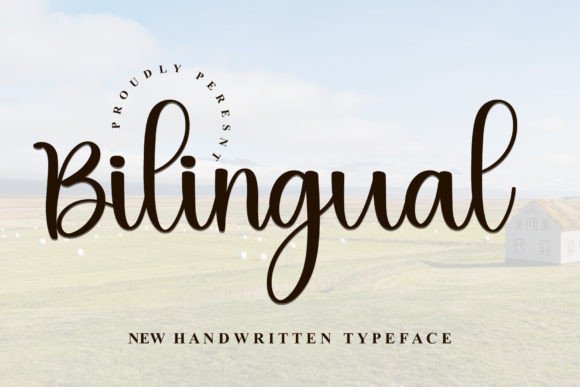
Feast your eyes on Bilingual, the acme of script fonts, meticulously crafted by FreshTypeINK. This elegant, modern typeface is designed to captivate, leaving an indelible mark on your business cards, logos, branding, invitations, stationery, wedding designs, and social media posts.
Bilingual is not just a font; it's an experience. Its graceful curves and impeccable details evoke a sense of sophistication and luxury. Each letter is a work of art, designed to elevate your designs to new heights.
With Bilingual, you can effortlessly create a lasting impression, whether you're a seasoned designer or just starting out. Its versatility knows no bounds, adapting seamlessly to a myriad of design styles.
Imagine your business cards adorned with the refined lines of Bilingual, commanding attention with every exchange. Your invitations will exude an air of timeless elegance, leaving guests in awe. And your social media posts will shine with a touch of sophistication that sets you apart from the crowd.
But Bilingual isn't just about aesthetics. It's also incredibly practical. Its clean lines ensure readability even at small sizes, making it perfect for logos and branding. And its extensive character set supports multiple languages, allowing you to connect with a global audience.